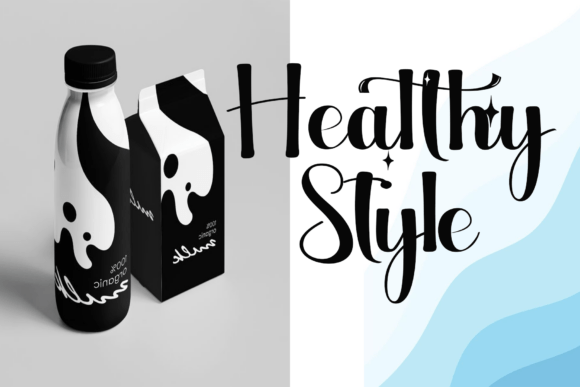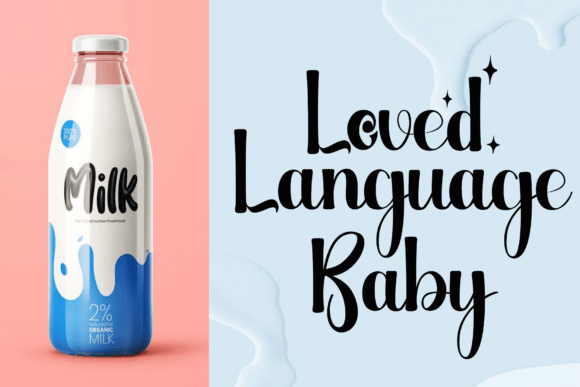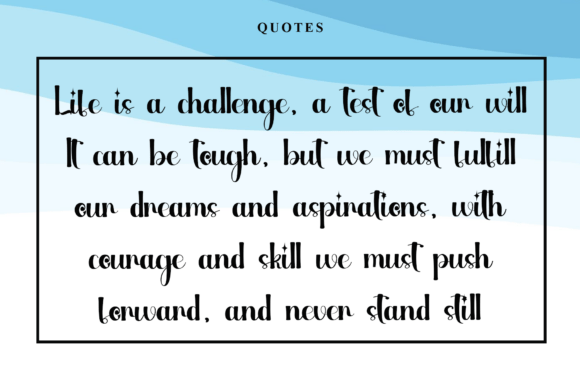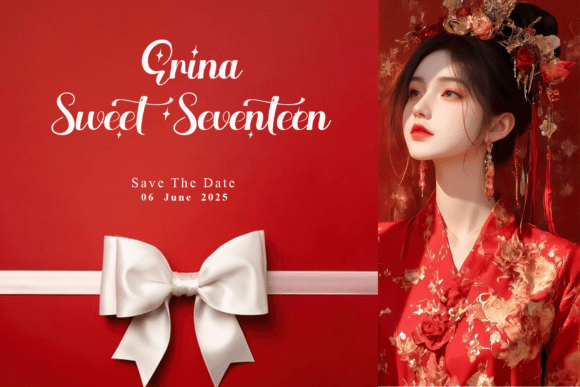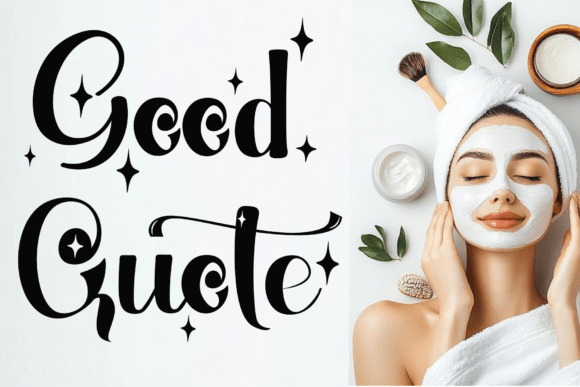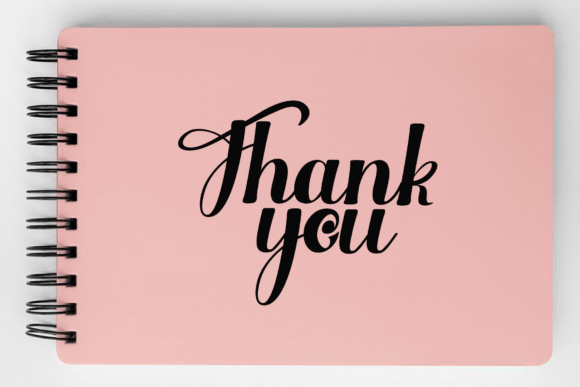
Introduction to Milk Butter Font
Have you ever stumbled upon a font that makes your design project feel like a warm hug on a cold winter day? For me, that moment came when I discovered the Milk Butter Font. Its soft, elegant strokes and feminine touch instantly elevated my design to a new level, and I knew I had to share it with the world.
As a designer, we’re always on the lookout for that special something that sets our creative projects apart from the rest. And let’s be honest, having a high-quality design resource like the Milk Butter Font in our arsenal can make all the difference. Whether you’re working on a branding project, crafting a wedding invitation, or designing a logo, this font is sure to add a touch of sophistication and elegance.
So, what makes the Milk Butter Font so special? For starters, it’s available for free download, making it an excellent addition to any designer’s toolkit. And with its transparent background, you can use it on a variety of backgrounds, from bright and bold to soft and subtle.
Key Features of Milk Butter Font
- Unique, hand-drawn style with a transparent background for versatility
- Designed to work well in digital applications, including web design and graphic design
Honest Review: Milk Butter Font
I recently had the chance to work with the Milk Butter Font for a creative project, and I must say it was a delight to use. This font is definitely a high-quality addition to any design resource collection.
- What works well: ✨ The Milk Butter Font has a unique, hand-drawn feel that adds a personal touch to any design project. The font is highly customizable, making it perfect for designers who want to add a touch of whimsy to their work.
One of the standout features of the Milk Butter Font is its transparent background, which makes it easy to layer over other design elements without any issues.
- Limitations: ⚠️ The Milk Butter Font may not be suitable for all types of projects, particularly those that require a more formal or traditional font style.
Overall, I’m impressed with the Milk Butter Font and would definitely recommend it to designers looking for a unique and creative solution for their next project.
Milk Butter Font is a high-quality, creative project resource that can be downloaded for free. This design resource is perfect for those looking for a unique and stylish font for their next project. With its transparent background, Milk Butter Font is easy to use and customize to fit your needs.
Milk Butter Font is perfect for a variety of creative projects, including logos, branding materials, social media posts, graphics, and presentations. Its high-quality design and transparent background make it a versatile resource for any design project.